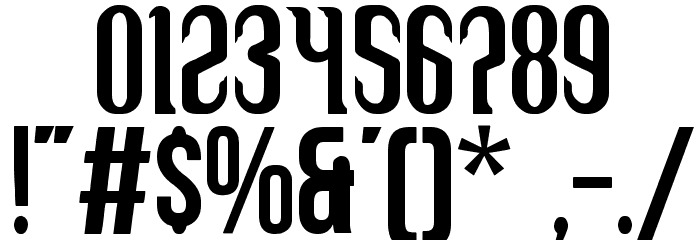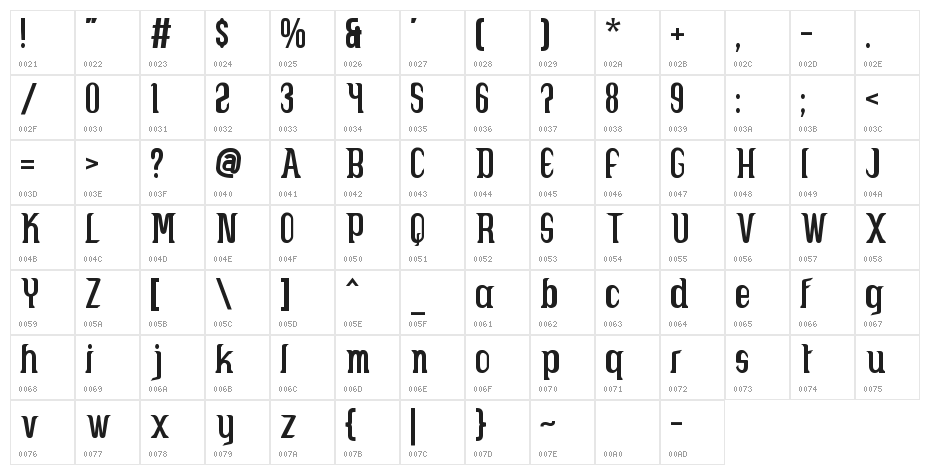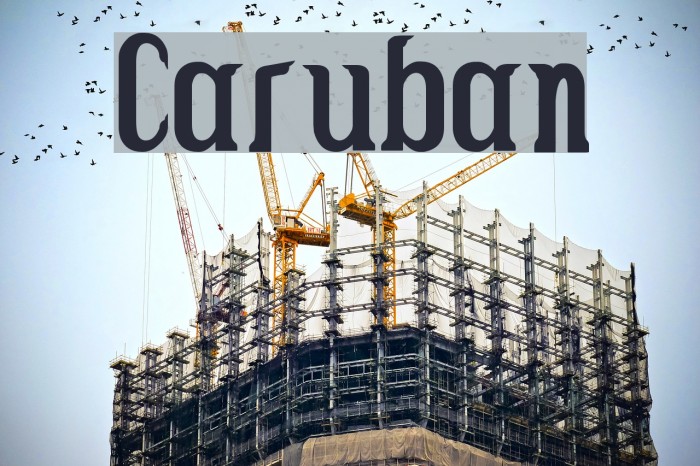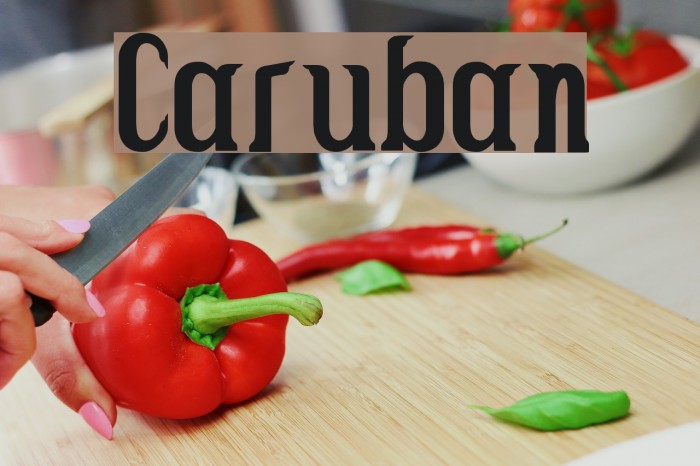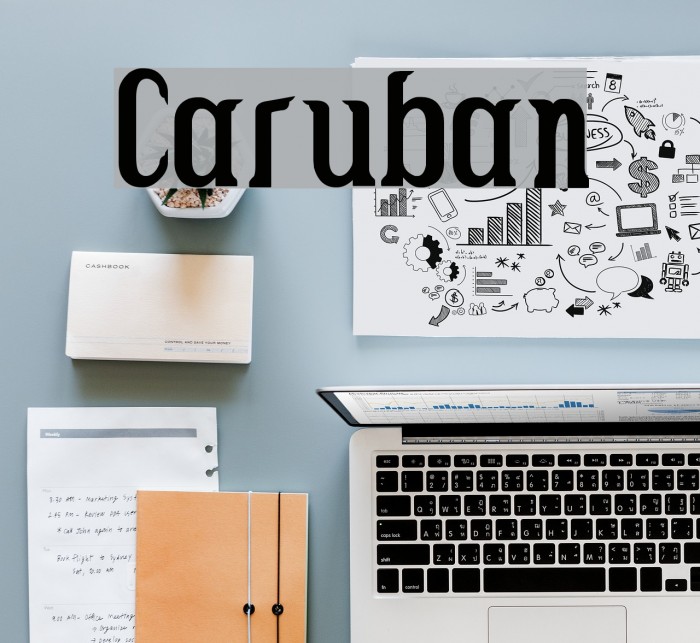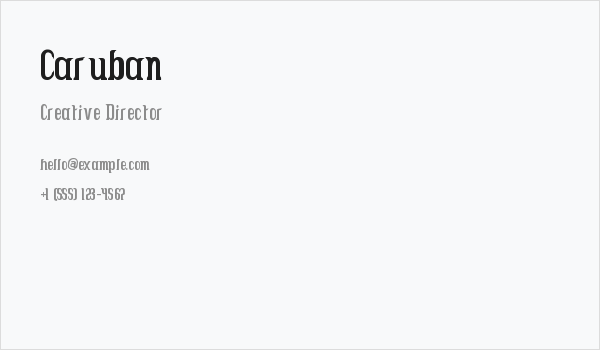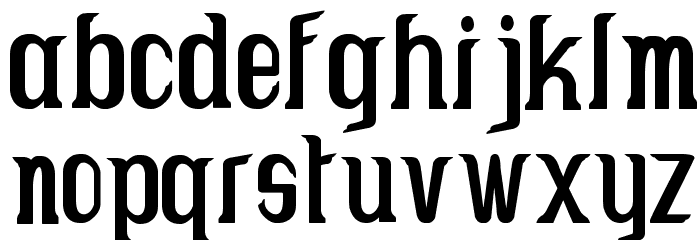
Caruban Font
Caruban Description
This font features a bold and striking design with a strong presence. The uppercase letters are tall and narrow, with sharp serifs that give them a distinctive, almost gothic appearance. The lowercase letters maintain the same boldness, with unique curves and angles that add character. The numbers are equally bold, with a consistent height and style that matches the letters. Special characters are designed to complement the overall aesthetic, making them suitable for attention-grabbing headlines or titles. The font's boldness and unique style make it ideal for projects that require a strong visual impact.
| Proposed Projects | Ideal for posters, headlines, branding, and any project needing a bold statement. |